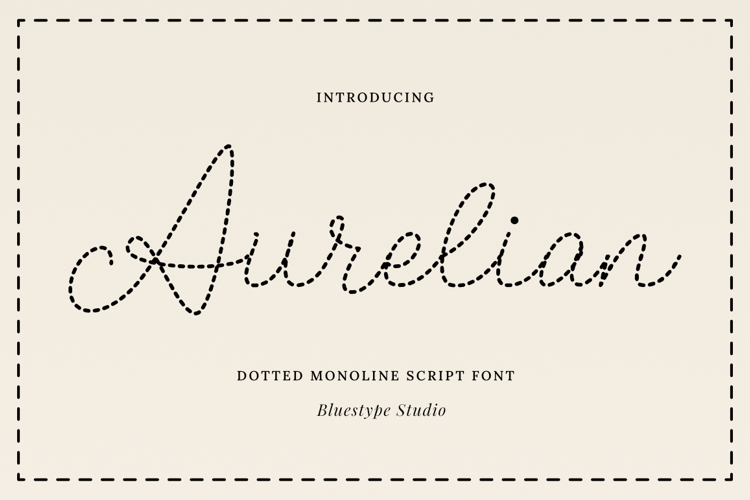
Aurelian Font
Discover Aurelian, a premium dotted monoline script font. A sophisticated dotted monoline script font that blends modern minimalism with a handcrafted touch. Designed with precision, Aurelian features a consistent stroke weight and a delicate stippled texture, creating a "trace-along" or "stitched" look that is both playful and refined.